The L.A. Confidential font reflects the glitz, danger, and dark glamour of 1950s Los Angeles as portrayed in Curtis Hanson’s acclaimed neo-noir film. The title design of the movie carries a bold, retro-inspired typeface, evoking the golden era of Hollywood while hinting at the corruption and intrigue that lies beneath the surface. Its sharp edges and vintage flair mirror the film’s atmosphere, where polished façades often conceal sinister truths.
L.A. Confidential Font
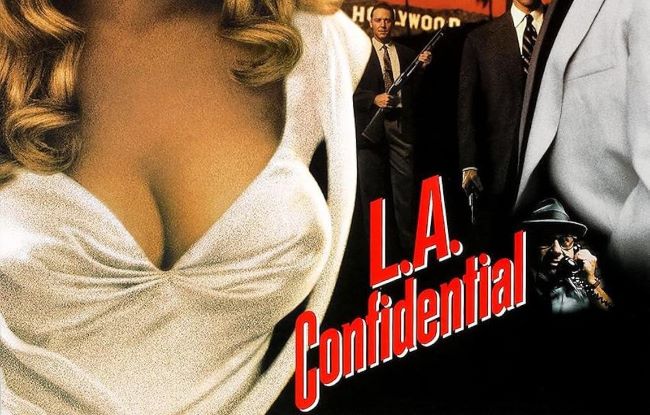
While there isn’t an official L.A. Confidential font available, designers and fans often look for fonts that replicate its Art Deco–inspired style. The movie’s typography resembles Bernhard Gothic Bold Condensed or Posterama Pro, both of which feature the clean lines and striking geometry associated with mid-20th-century design. These fonts give off a sophisticated yet dramatic feel, perfectly suited for projects that want to capture that noir aesthetic.
Fonts inspired by the L.A. Confidential font are excellent for vintage posters, crime-drama designs, retro branding, or any project that seeks to bring back the smoky allure of classic Los Angeles. They balance elegance with boldness, making them timeless choices for designers.
Choosing a L.A. Confidential font–style typeface means more than adding vintage flair—it’s about tapping into the dark sophistication of a story where crime, corruption, and Hollywood glamour collide. You can also check our free fonts collection.